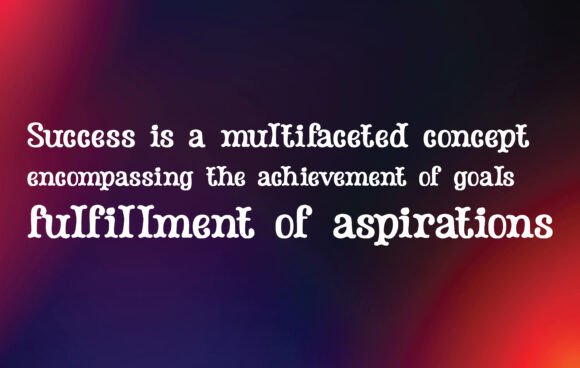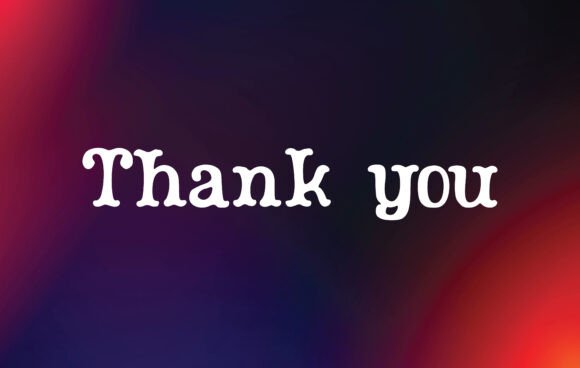
Discover the Elegance of Heliotrope Font: Elevate Your Designs with Style and Versatility
In the world of typography, finding the perfect font that combines style, readability, and versatility can be a daunting task. However, if you’re on the hunt for a typeface that can effortlessly elevate your creative projects, look no further than the Heliotrope Font. Crafted with precision and designed with elegance, this font is poised to become a staple in your collection, offering the ideal blend of sophistication and adaptability.
The Perfect Blend of Style and Readability
One of the standout features of the Heliotrope Font is its exceptional readability. In an era where digital content is king, the ability to communicate your message clearly and effectively is paramount. Whether you’re working on magazine headlines, body text for websites, or detailed descriptions for branding materials, this font ensures that your content is not only visually appealing but also easily digestible by your audience.
Moreover, Heliotrope Font boasts a unique style that sets it apart from more generic typefaces. Its elegant lines and balanced proportions make it an excellent choice for titles, where making a strong visual impact is crucial. Yet, its subtle sophistication also lends itself beautifully to body text, ensuring that your written content is both engaging and easy to read.
The true power of the Heliotrope Font lies in its incredible versatility. Designers and crafters often find themselves working on a wide array of projects, from the digital realm of social media posts and website content to the more traditional domains of print, such as t-shirts, wedding invitations, and greeting cards. In such cases, having a font that can seamlessly adapt to different contexts and mediums is invaluable.
Heliotrope Font fits perfectly into this niche, offering a consistent aesthetic that enhances any project it’s used in. For instance, its stylish appeal makes it a natural fit for fashion-related designs, such as magazine headlines or t-shirt graphics. On the other hand, its elegance and readability ensure it works beautifully for more formal applications, like wedding invitations or professional branding materials.
Applications of Heliotrope Font
The applications of Heliotrope Font are vast and varied, limited only by your imagination. Here are a few ideas to get you started:
• Magazine Headlines: Use Heliotrope Font to create eye-catching titles that draw readers in.
• T-Shirts and Apparel: Its stylish and modern look makes it perfect for fashion designs.
• Social Media Posts: Stand out on crowded feeds with elegant and engaging typography.
• Branding Materials: Establish your brand’s identity with a sophisticated and professional typeface.
• Wedding Invitations and Greeting Cards: Add a touch of elegance and romance to your designs.
Why Choose Heliotrope Font?
With so many fonts available, why should Heliotrope Font be your go-to choice? The answer lies in its unique combination of style, readability, and versatility. Unlike fonts that excel in one area but fall short in others, Heliotrope Font offers a balanced package that meets the demands of a wide range of projects.
Furthermore, investing in a quality font like Heliotrope can significantly enhance your design workflow. With a font that you know and love, you’re able to focus more on the creative aspects of your projects, rather than worrying about finding the right typeface.
In conclusion, the Heliotrope Font is more than just a typeface – it’s a design essential that can elevate your creative projects to new heights. Its perfect blend of style, readability, and versatility makes it an invaluable asset for designers and crafters alike. Whether you’re working on digital content, print materials, or anything in between, Heliotrope Font is sure to become your new favorite, helping you to create visually stunning and effective designs that leave a lasting impression.